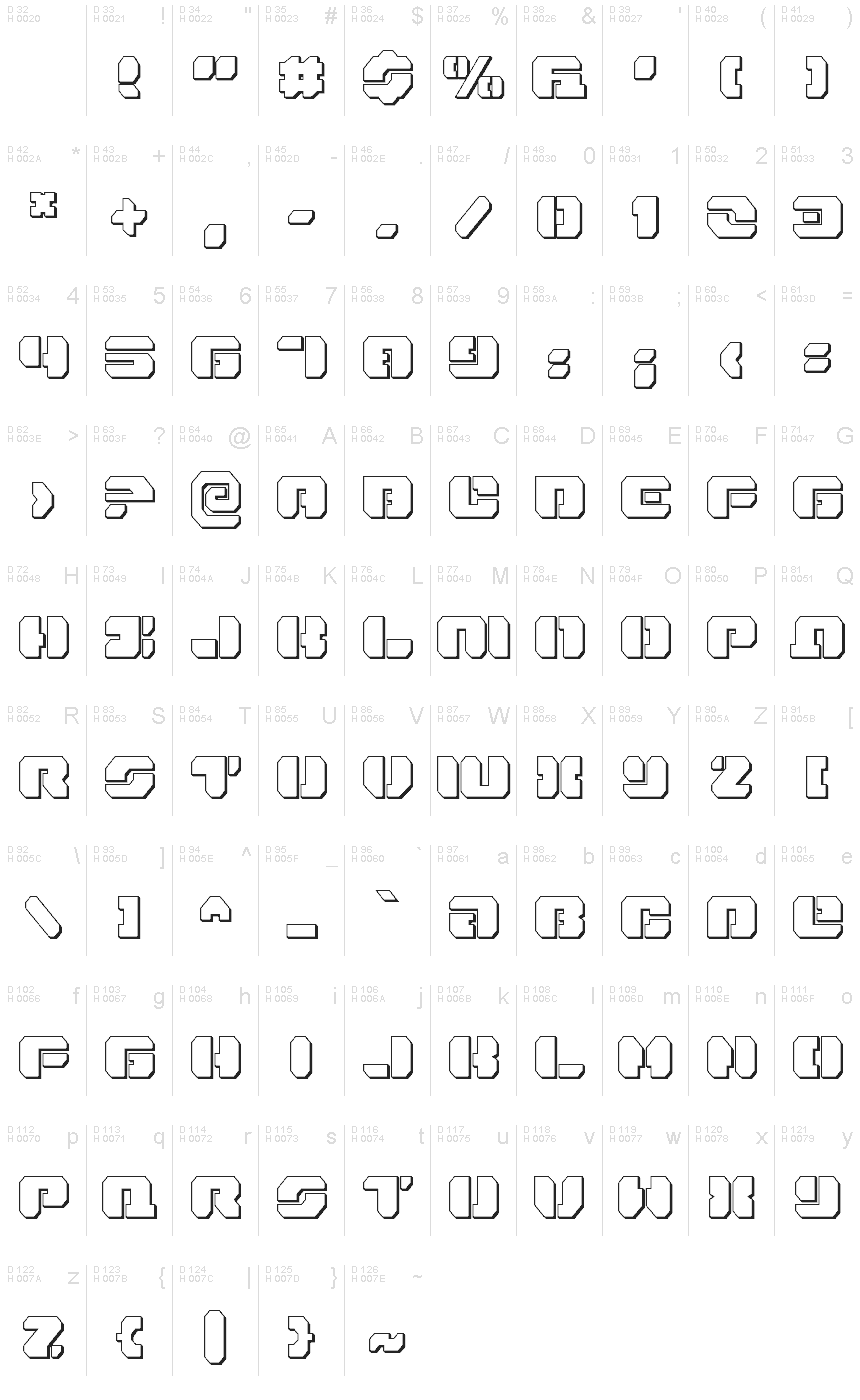
Dan Stargate 3D font by Iconian Fonts is a futuristic typeface with a retro sci-fi vibe. Uneven spacing, geometric elements, and an expanded width make the characters unique and impressive for both digital and print designs. The horizontal extensions to both sides of each character are what mark their signature unconventional structure while guaranteeing high visibility at all sizes. A mostly monospace-like appearance makes this font highly professional, thus suitable for several use case scenarios.
Presentazione e campione visivo del carattere Dan Stargate 3D